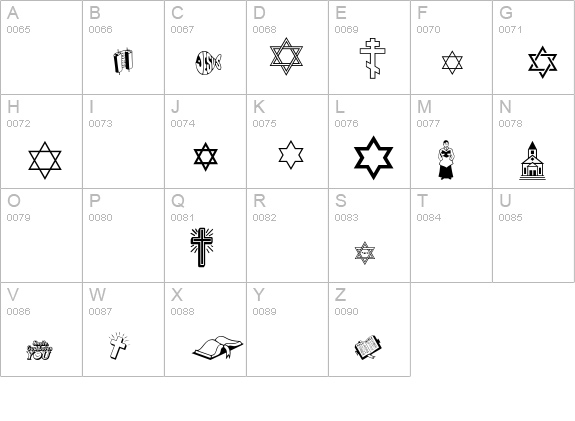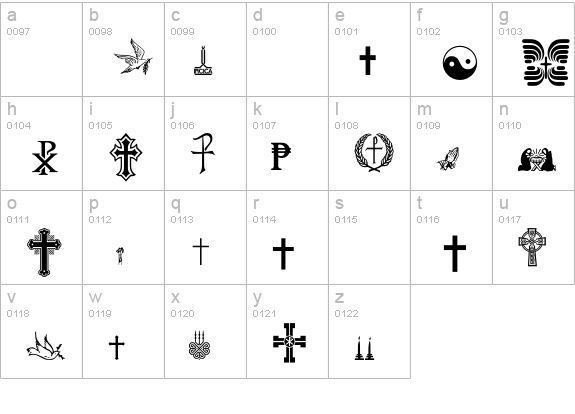
ReligiousP01 font is a beautiful and intricate typeface that exudes a sense of spirituality and devotion. With its delicate curves and ornate details, this font is perfect for adding a touch of elegance to any religious or spiritual project. What sets ReligiousP01 font apart is not only its stunning design, but also the fact that it is freely available to download at FontsMarket.com. This means that anyone, regardless of their budget or resources, can access and utilize this remarkable font for their personal or professional endeavors. Whether you are creating religious literature, designing a website for a place of worship, or simply seeking to add a touch of reverence to your creative projects, ReligiousP01 font is sure to be a valuable asset. Its versatility allows it to be used in a wide range of contexts, making it suitable for everything from invitations to religious events to intricate church signage. The ReligiousP01 font is carefully crafted to capture the essence of religious art and symbolism. Each character has been meticulously designed to reflect the beauty and majesty associated with faith and spirituality. Its flowing lines and intricate details make it a truly eye-catching font that is certain to make a lasting impression. Whether you are a designer, a writer, or simply someone who appreciates the power and beauty of religious art, the ReligiousP01 font is a must-have in your collection. Its timeless elegance and freely accessible nature make it an invaluable resource for anyone seeking to add a touch of spirituality to their creative endeavors. So why wait? Head over to FontsMarket.com and download ReligiousP01 font today, and let its divine beauty inspire your next project.